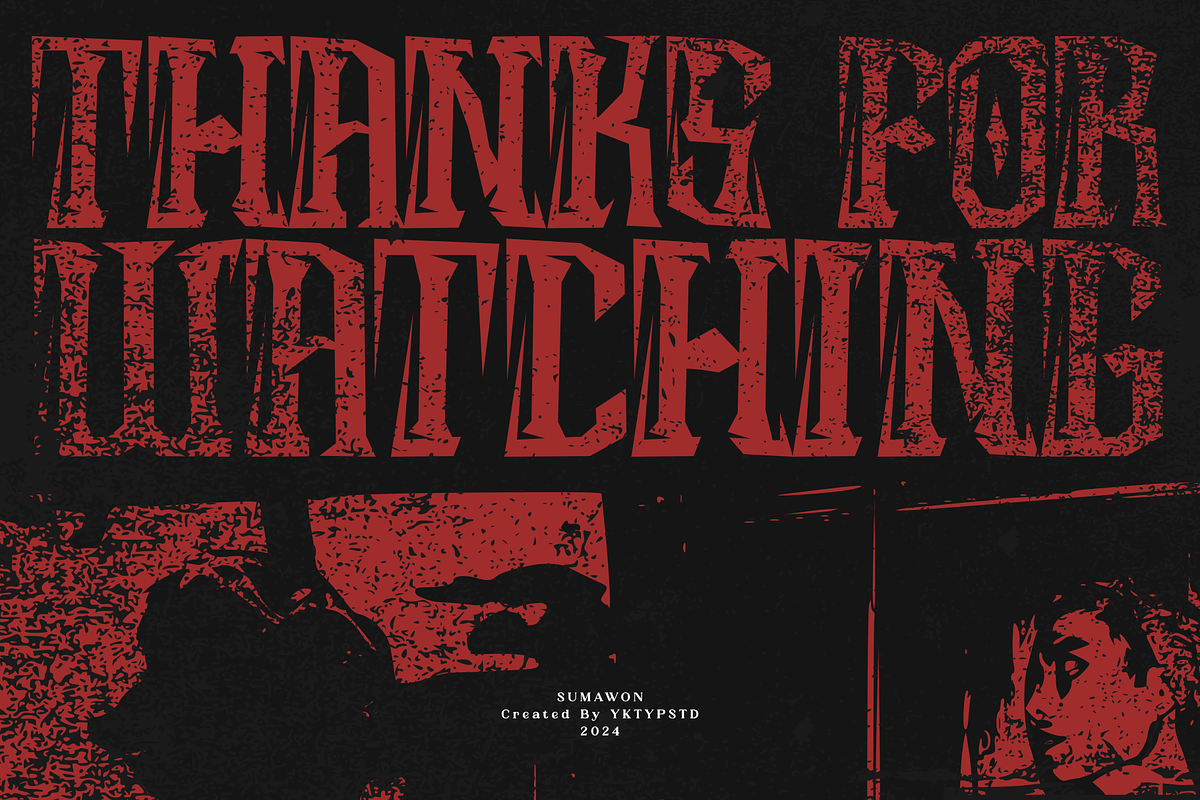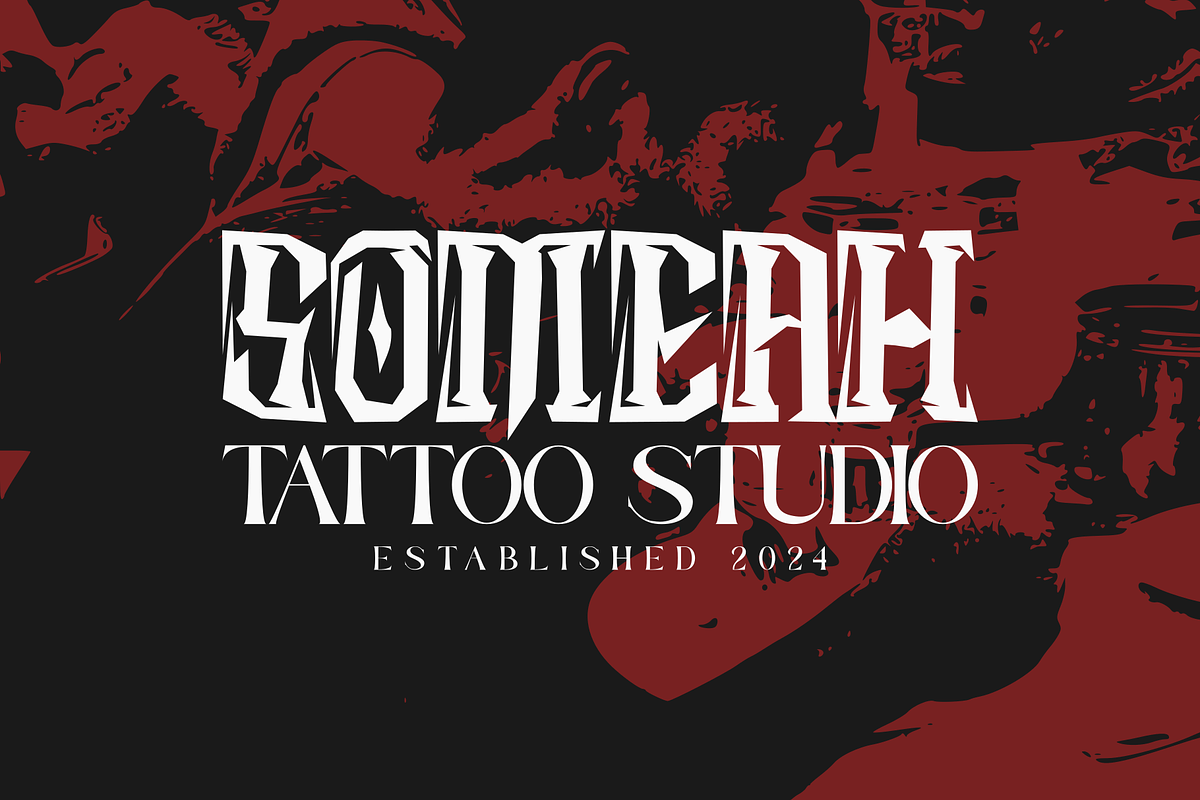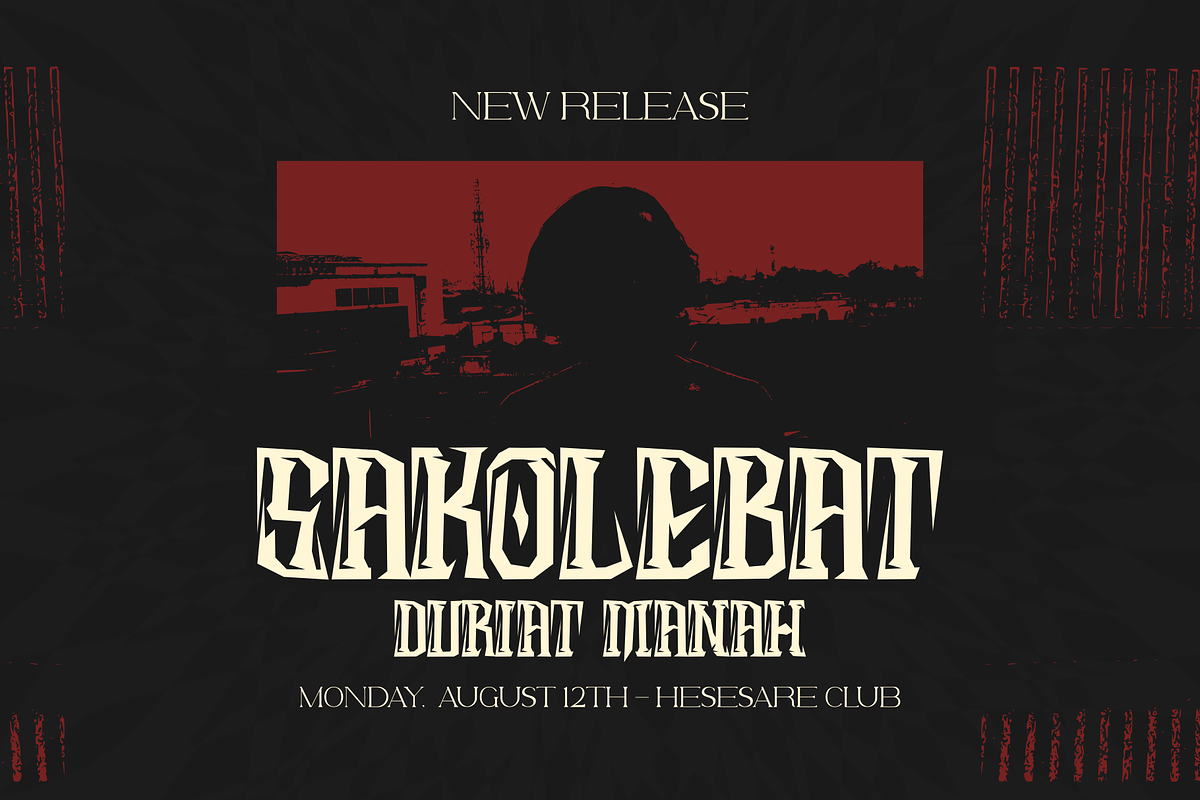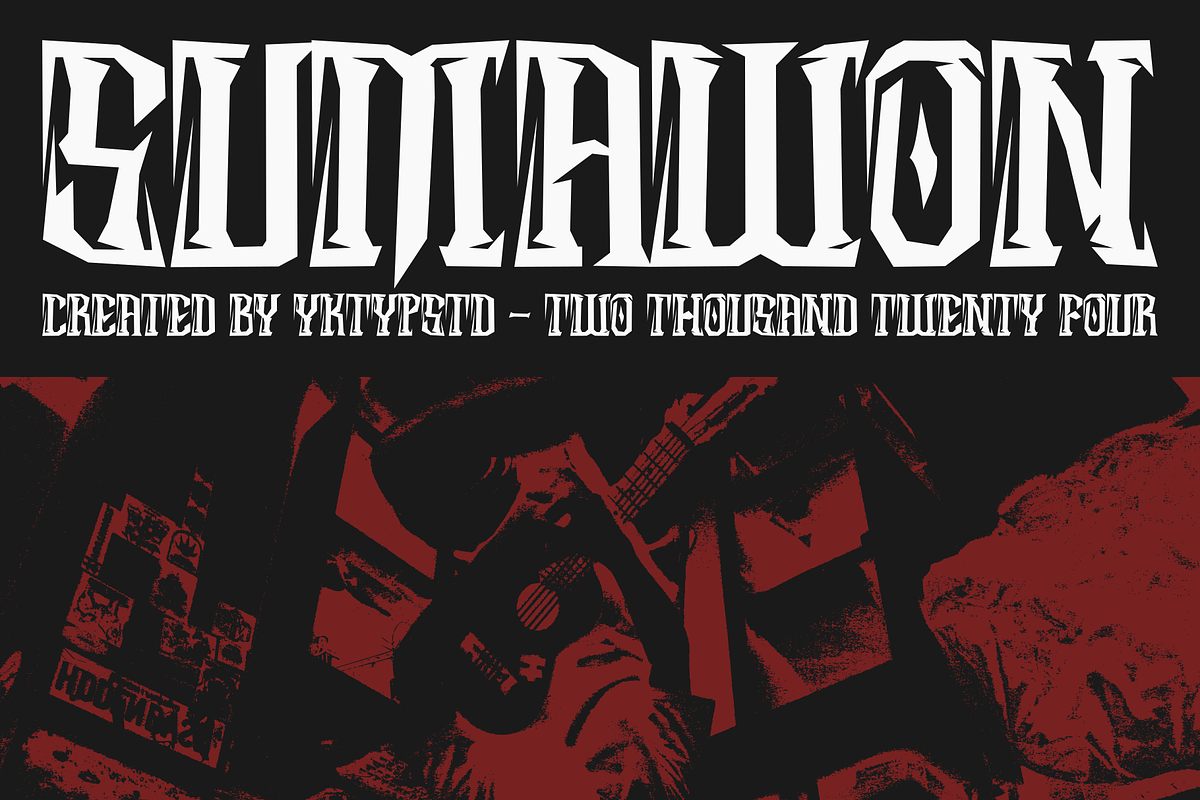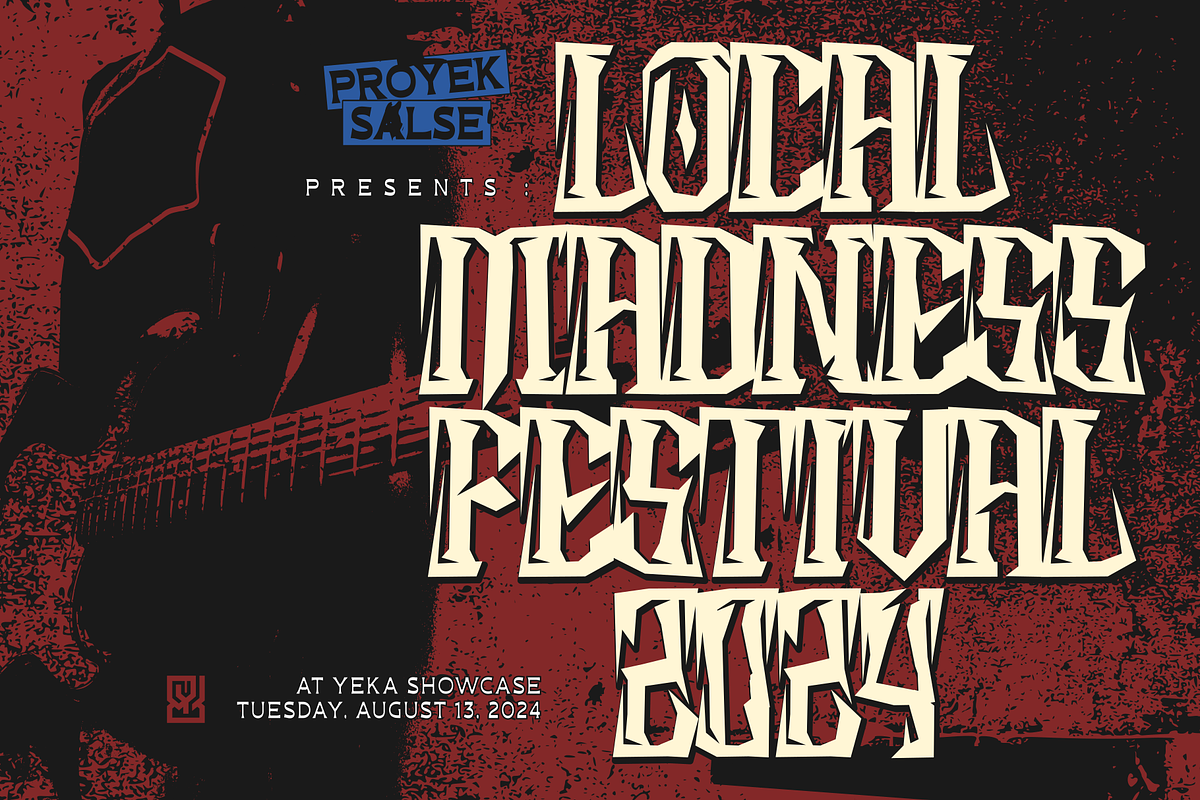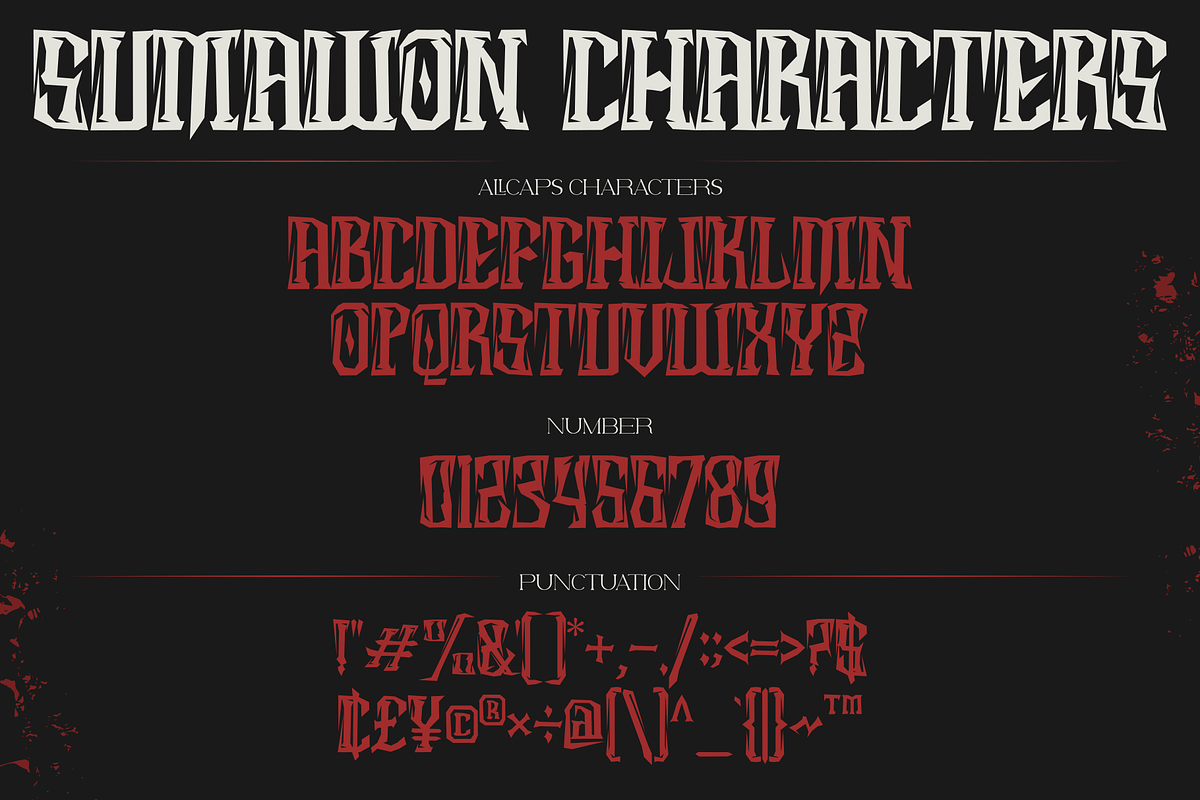
Sumawon
Sumawon is a dynamic font designed to enhance your design aesthetics. Ideal for vibrant logotypes, compelling headlines, trendy apparel, enticing album covers, and innovative branding projects, it stands as an excellent choice for various creative needs. Its bold and versatile nature makes it perfect for band promotions, attention-grabbing merchandise, and impactful posters.
Whether working on commercial or personal projects, Sumawon brings a unique visual impact to a wide spectrum of uses, including horror movie themes. Infuse your designs with the innovative power of Sumawon and create captivating visuals that command attention.
- Letters in all caps (A-Z)